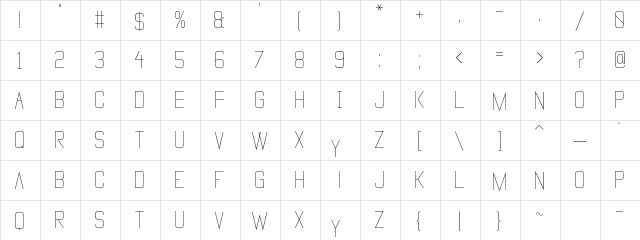
Vanadine Regular
Design Context for Vanadine Typeface
Vanadine takes a measured approach to typography — its balanced proportions and neutral character make it a reliable workhorse for both digital and print work.